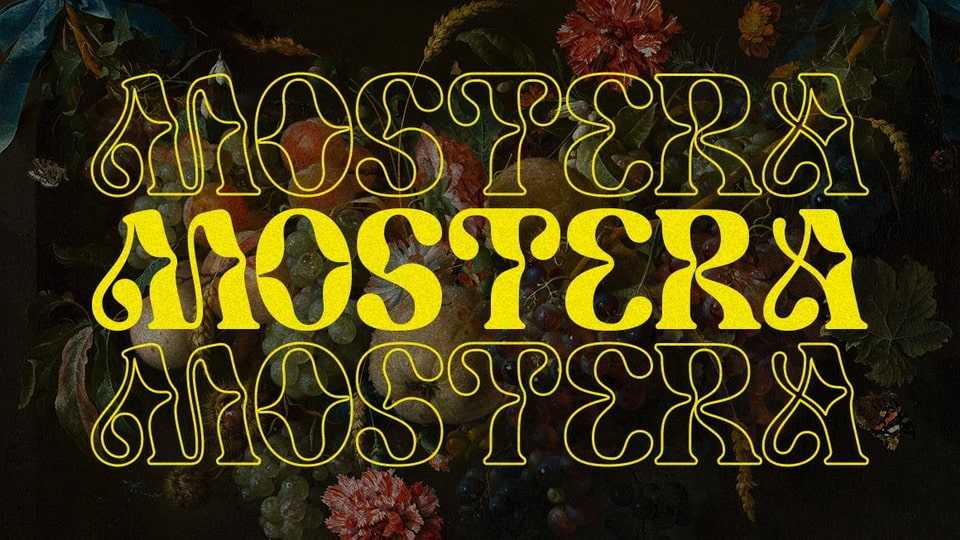
Download Mostera font, a fun unique display serif typeface. Mostera font looks sturdy and playful with a retro touch and is perfect for fashion branding or editorial designs.